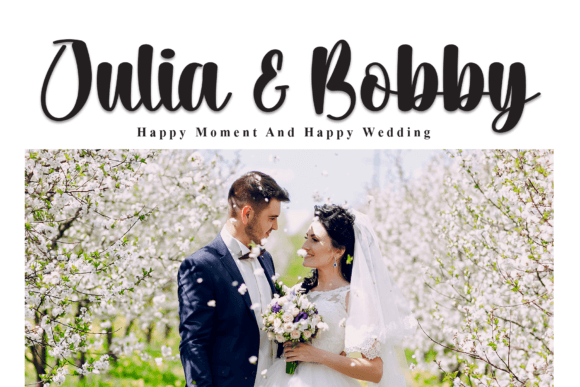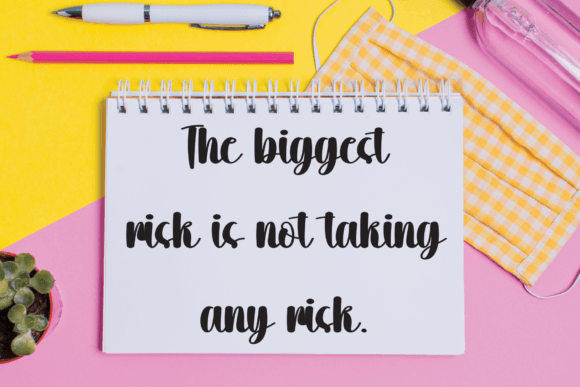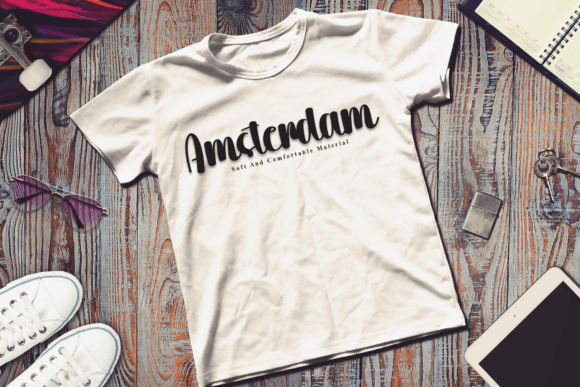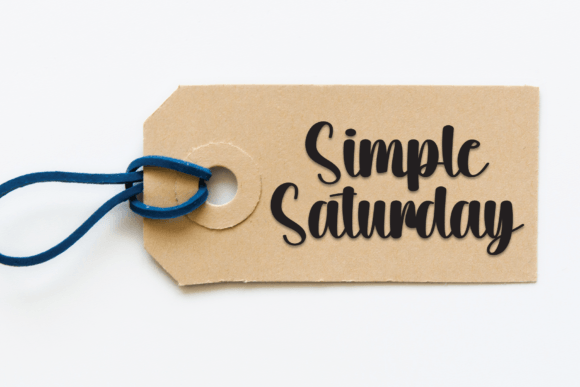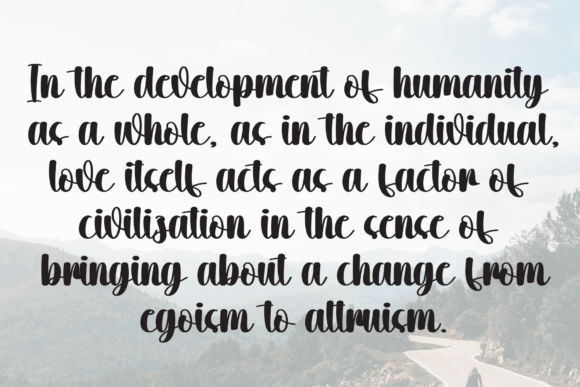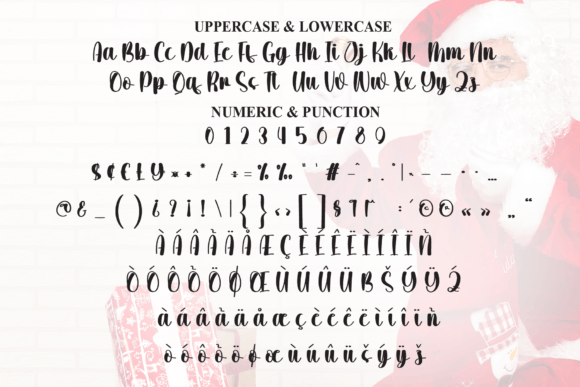
Introduction to Santa Delight Font
Santa Delight is a charming handwritten font that captures the joy of the holiday season.
Its playful curves and cozy feel make it perfect for festive cards, gifts, and decorations Each letter has a warm, friendly touch, bringing a smile to your projects.